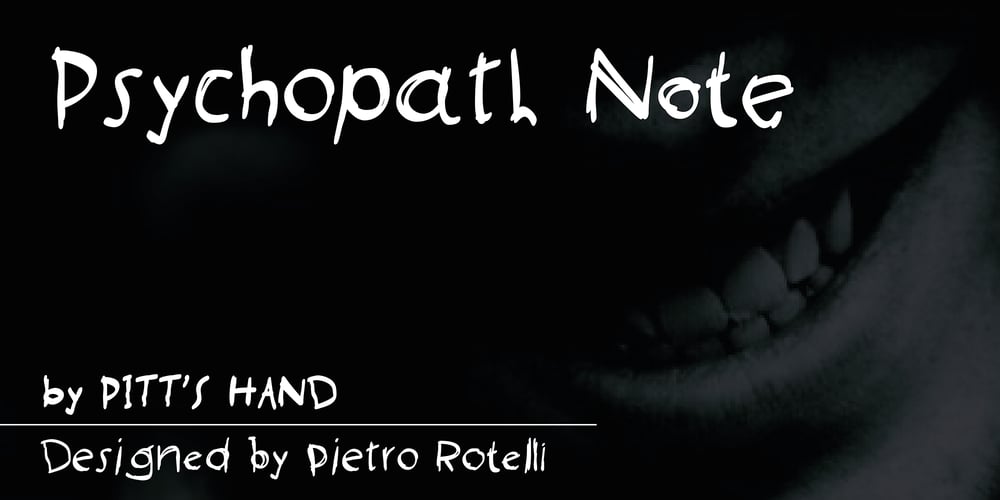
Psychopath Note Font Family was designed by Pietro Rotelli and published by Pitt’s Hand. Psychopath Note contains 3 styles and family package options. I work as a comic letterer for an Italian publisher. I created this font to write the Italian version of a Batman comic. We needed a style of writing that simulated imprecise handwriting that could change in letters and space. I didn’t have one, so I decided to make one by myself. It is the first font created with criteria, and after having adjusted it, I propose it to you here. Valid for lettering comics, or for titles and graphic design when you need a simulated handwritten note, which is credible but still easy to manage.